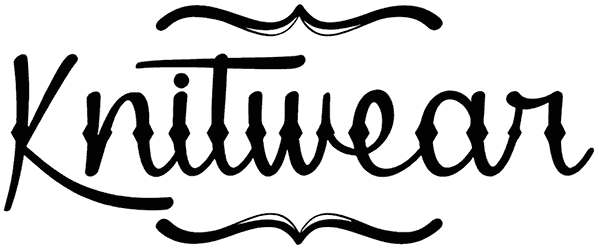
Knitwear Font
Knitwear is the best font to use if you want something casual. Its knitted look is great for a lot of different kinds of art that need to look interesting and different.
Despite the fact that it does not have numeric characters, this script font can be used in a variety of contexts, including packaging, movie posters, flyers, and so on. It has a nice design, so download it and refresh the look of your projects or presentations.